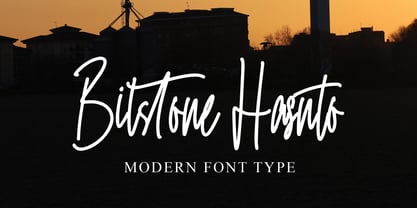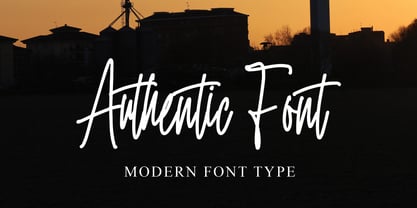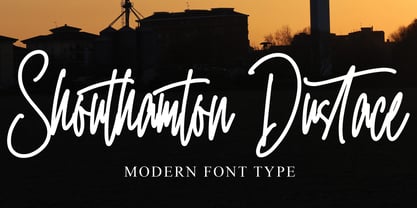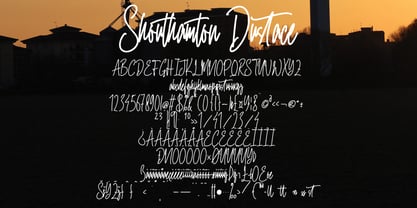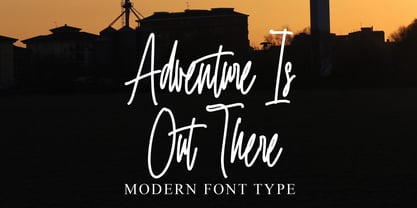
Shouthamton Dusthance
The Shouthamton Dusthance Font Family was designed by Dhoni Trihatmoko and published by Ayska. Shouthamton Dusthance contains 1 styles. More about this family
Discover the captivating allure of Shouthamton Dusthance, an artful font that flawlessly blends modern sophistication with authentic, handwritten appeal. This meticulously crafted typography exudes sophistication and individuality, positioning itself as a compelling ally for your creative digital endeavors. Shouthamton Dusthance invites you to charm your blog followers, instill character in your digital planner designs, invigorate your invites, or pour heartfelt sentiments into DIY cards. It masterfully balances a nostalgic, vintage aura perfect for your photo albums with a fresh, unique spin for your custom decor. Shouthamton Dusthance holds the power to revolutionize ordinary digital image into extraordinary, visually stunning feats of creativity. Originating from a core of authenticity, it encourages your innovative spirit to flow, resonating memorable imprints. Traverse the artistic mastery of Shouthamton Dusthance and witness its subtle power in remolding your ambitions into tangible masterpieces of art.
Shouthamton Dusthance